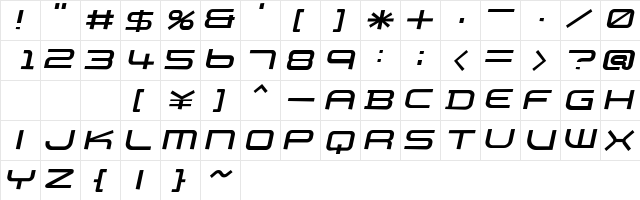
PB010 TRANSPORT X LightOblique
Design Context for PB010 TRANSPORT X Typeface
PB010 TRANSPORT X brings high-energy athletic personality to the page — its confident, muscular forms are built for impact. The slanted form adds forward momentum and visual energy. The delicate stroke weight brings airiness and refinement to layouts.
Built for sports team identities, athletic apparel, event posters, and high-energy promotional material.
Pro Tip: PB010 TRANSPORT X thrives on contrast — try it large, bold, and tight against a clean background for maximum visual impact.